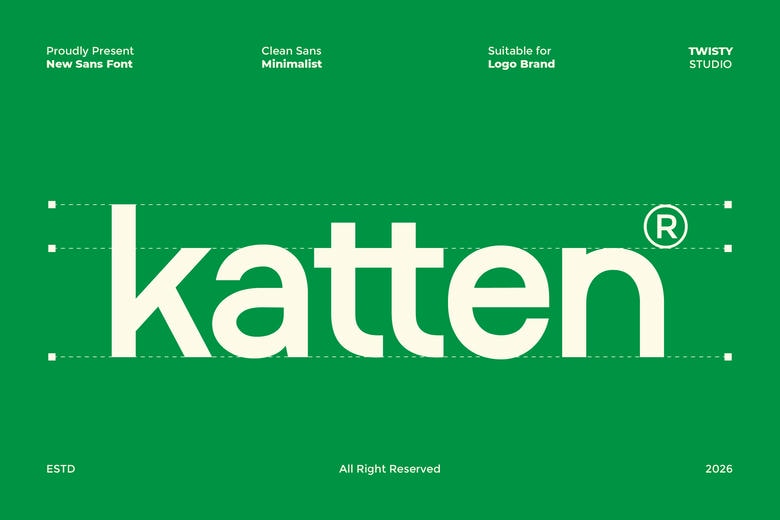
Katten Font
Katten is a clean sans serif minimalist typeface that aims to add simplicity, clarity, and modern elegance to your designs. Katten is a smooth-lined, well-proportioned, and elegant lettering that produces a serene and professional visual impression and is well suited to the current trends in design.
Constructed in a minimalist style, Katten is concerned with readability and visual harmony. Its clean design enables your content to shine through with minimal effort, and it is perfect in both headlines and small body text.
Katten Sans Serif Font